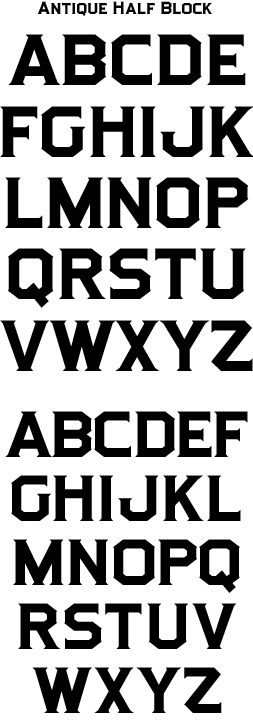
Atkinson inspired block style with serifs. Circa 1909
Includes uppercase, small caps, punctuation, numerals and accent characters.
Includes numbers, full punctuation & accent characters